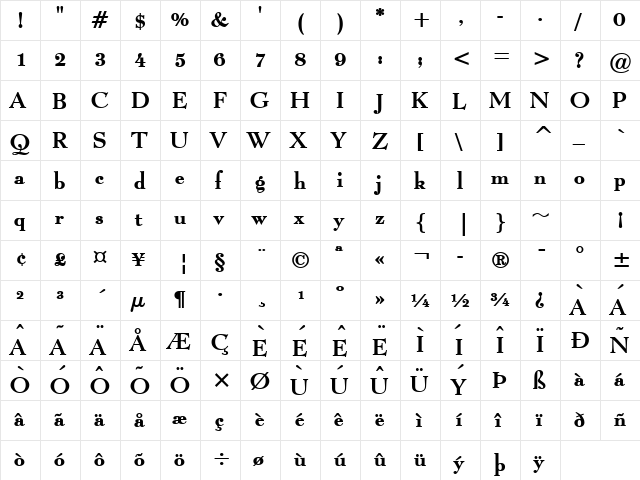
Luciano Bold
Design Context for Luciano Typeface
Luciano is a composed and adaptable typeface that performs quietly and consistently across a wide range of design contexts. Its bold stroke weight gives it real presence on the page.